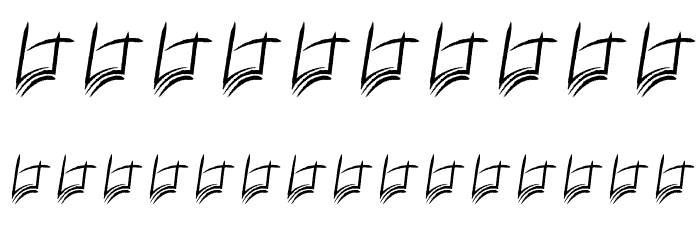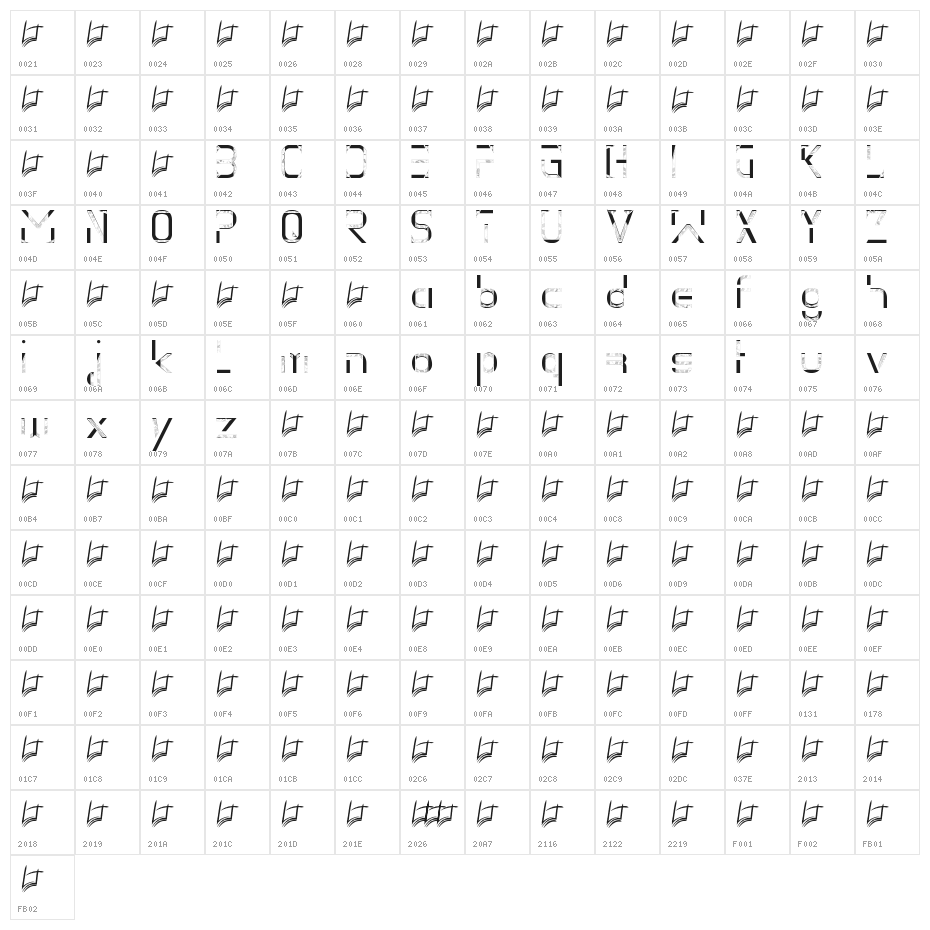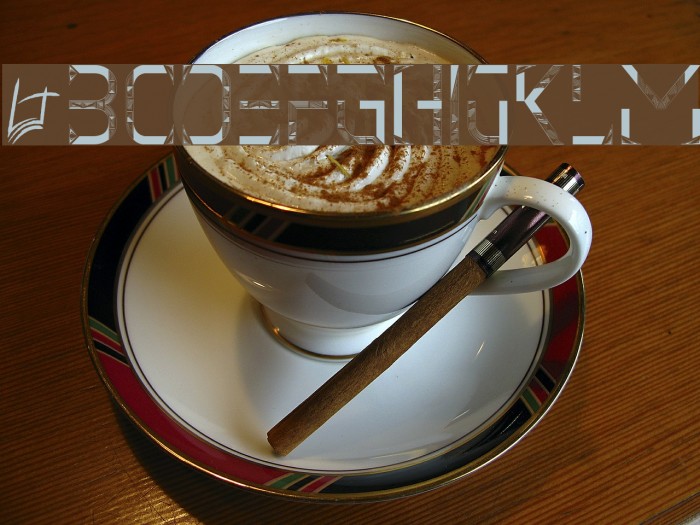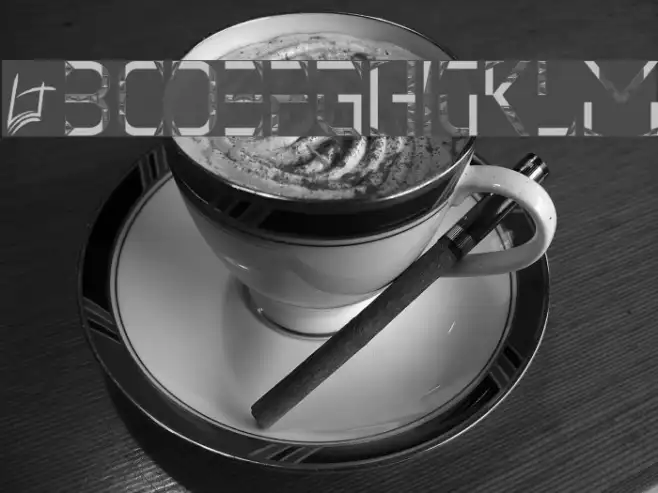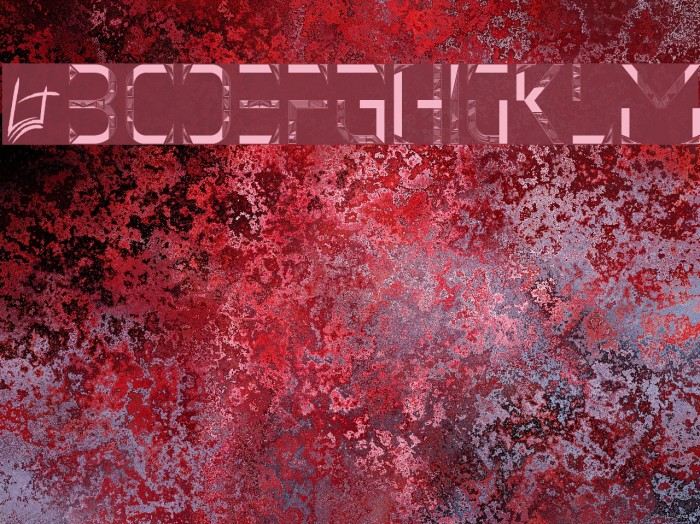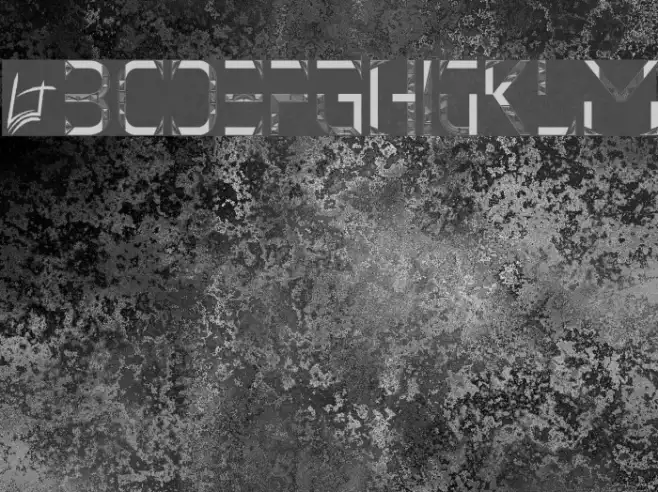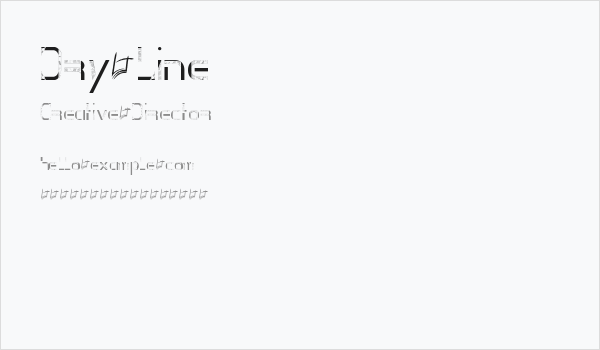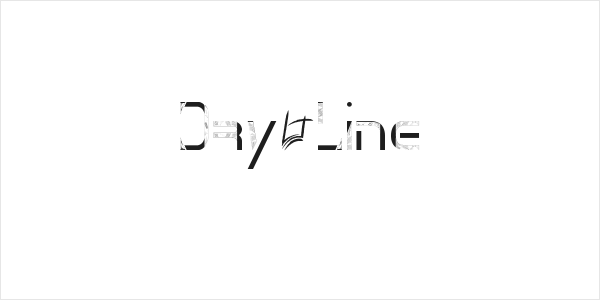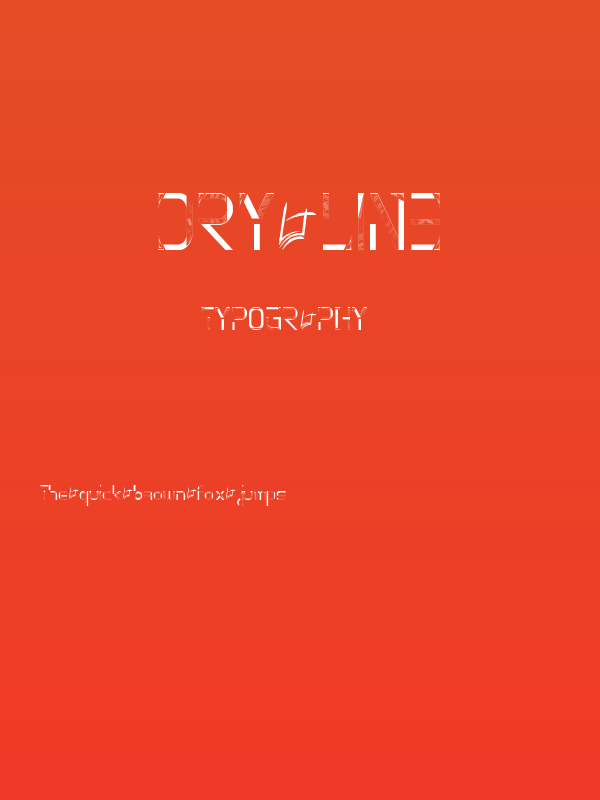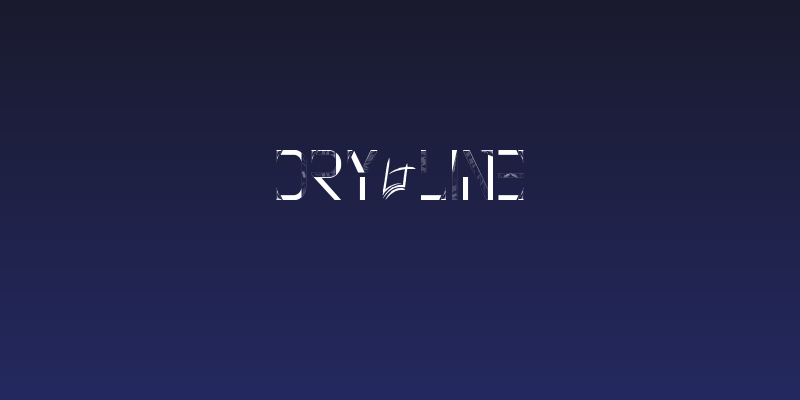
Dry Line Font
Dry Line Description
This font features a unique and modern design with a distinct geometric structure. Each character is crafted with a combination of bold lines and intricate patterns, creating a striking visual effect. The uppercase letters are particularly angular, with sharp edges and a futuristic feel. The lowercase letters maintain a similar style, though they are slightly more rounded, offering a nice contrast. The numbers and special characters follow the same design principles, ensuring consistency throughout. This font is ideal for projects that require a bold and eye-catching typeface, such as branding, advertising, or digital media.
| Proposed Projects | Ideal for branding, advertising, digital media, and any project needing a bold, eye-catching typeface. |